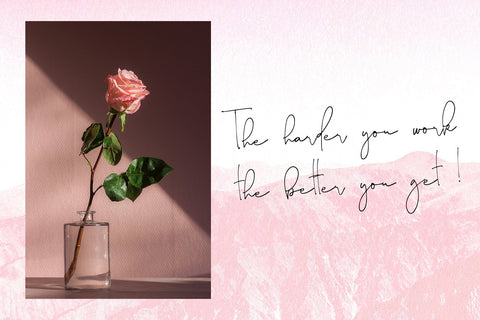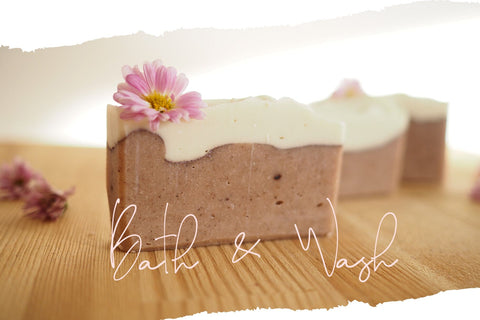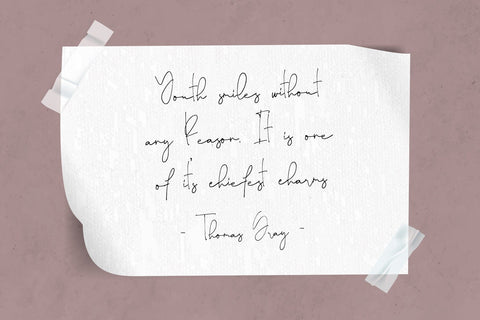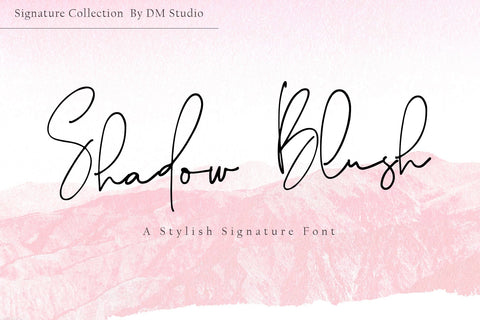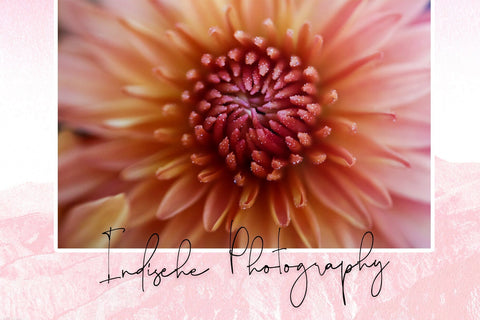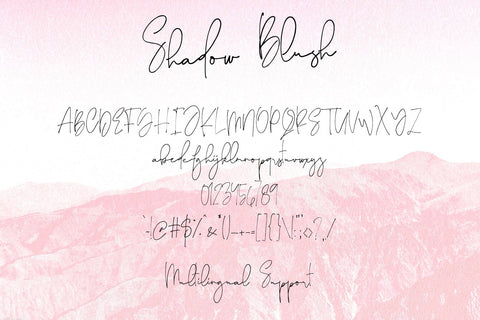
Shadow Blush Font
Shadow Blush Font is a stylish and modern typeface with a hint of sophistication. Perfect for fashion branding, editorial designs, and stylish invitations, this font adds a contemporary and chic vibe to your projects.
- Stylish Design: Shadow Blush Font features modern and chic letterforms that exude sophistication.
- Versatile Application: Ideal for fashion branding, editorial designs, stylish invitations, and more.
- Uppercase and Lowercase Letters: Includes both uppercase and lowercase letters.
- Ligatures and Special Characters: Offers a range of ligatures and special characters.
- Punctuation and Symbols: Comprehensive set of punctuation marks, numerals, and symbols.